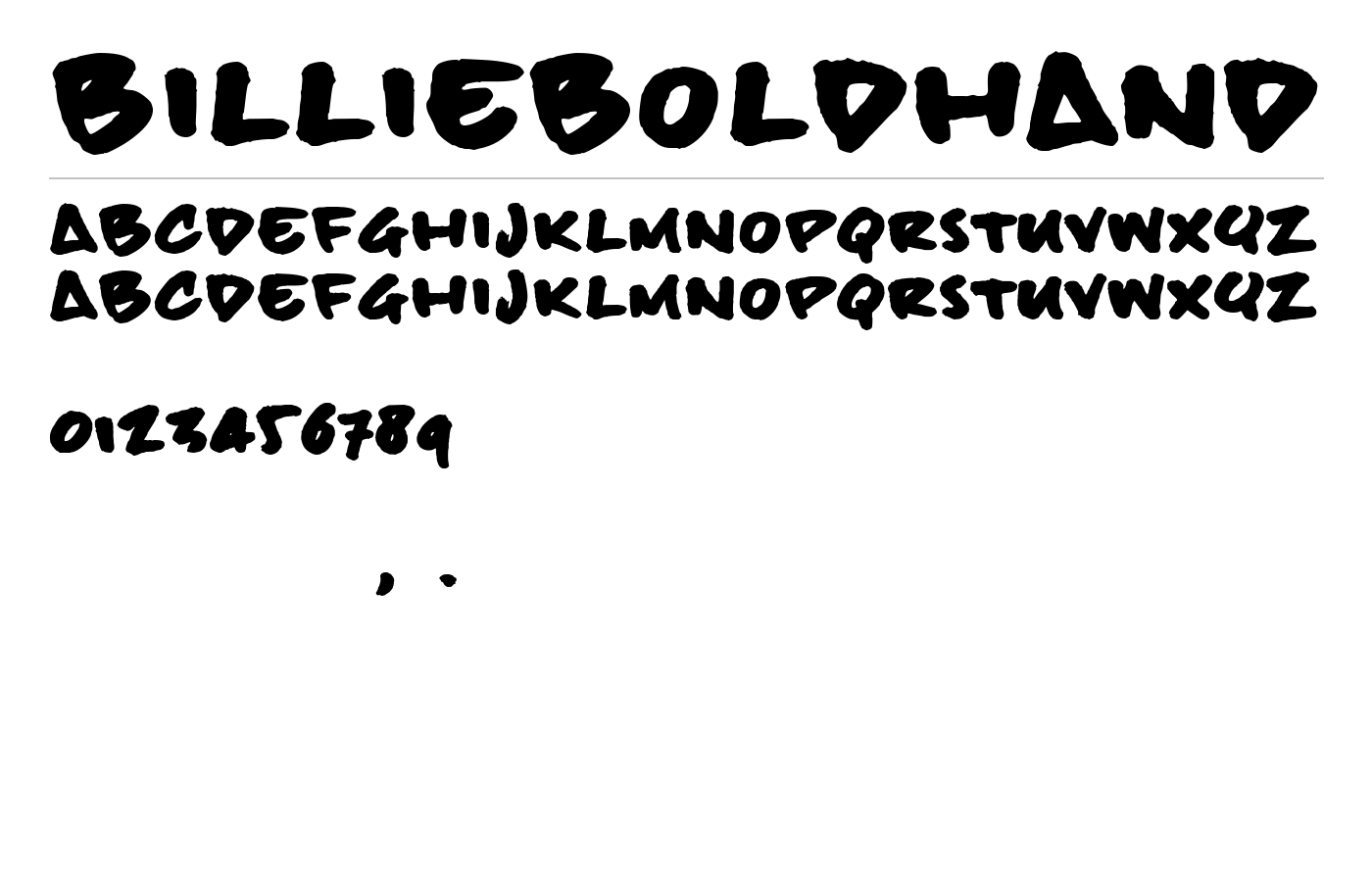
BillieBoldHand is a bold, hand-drawn sans serif font with a playful and informal vibe. Its thick, uneven strokes and brush-like texture create a lively and approachable feel, perfect for creative and casual branding, posters, or headlines that need a strong personality and unique charm. This font works well where a personal, energetic touch is desired.
billieBoldHand Font